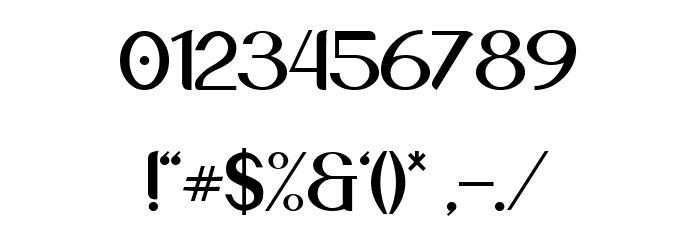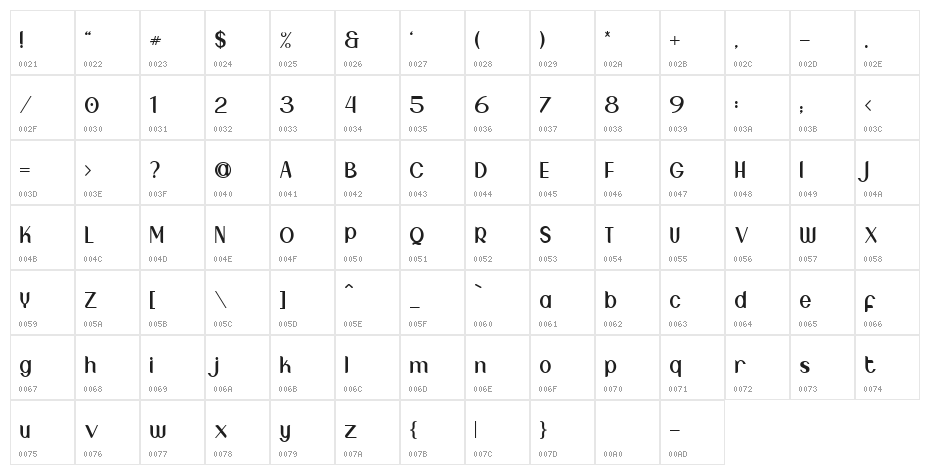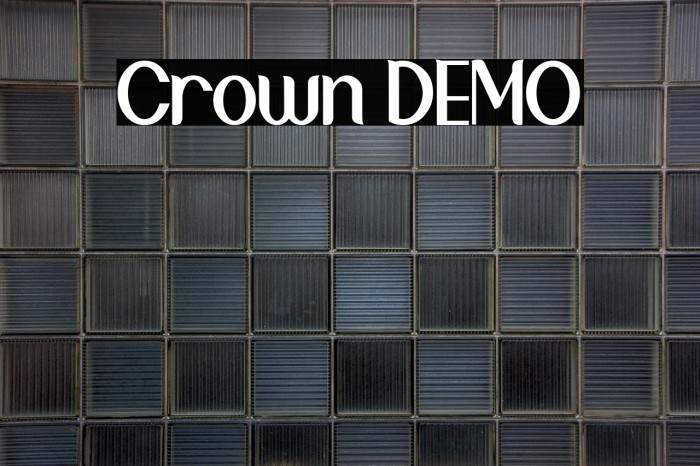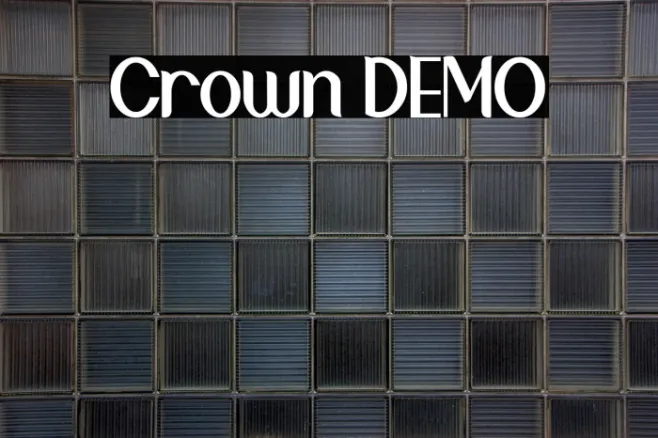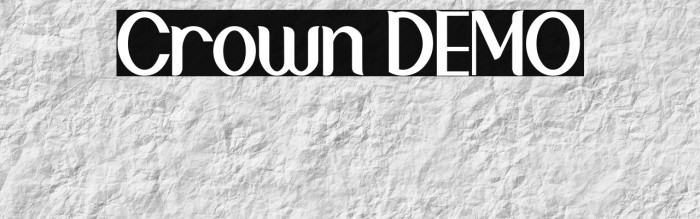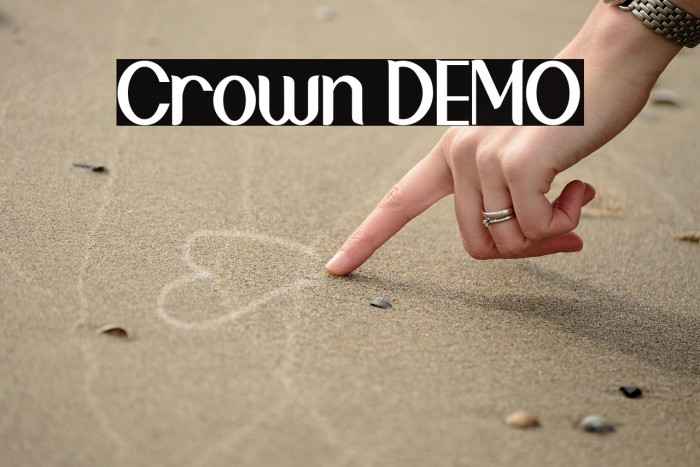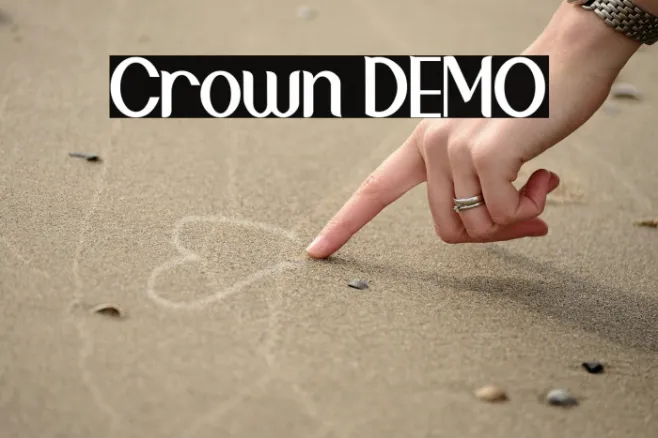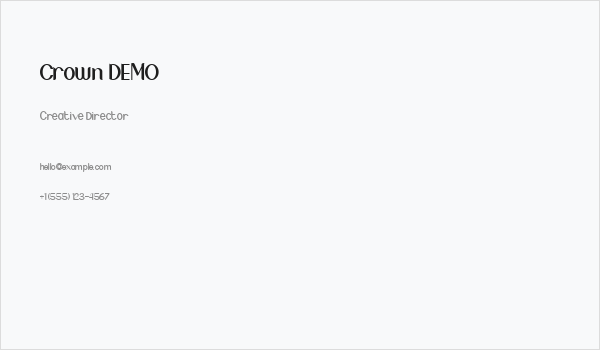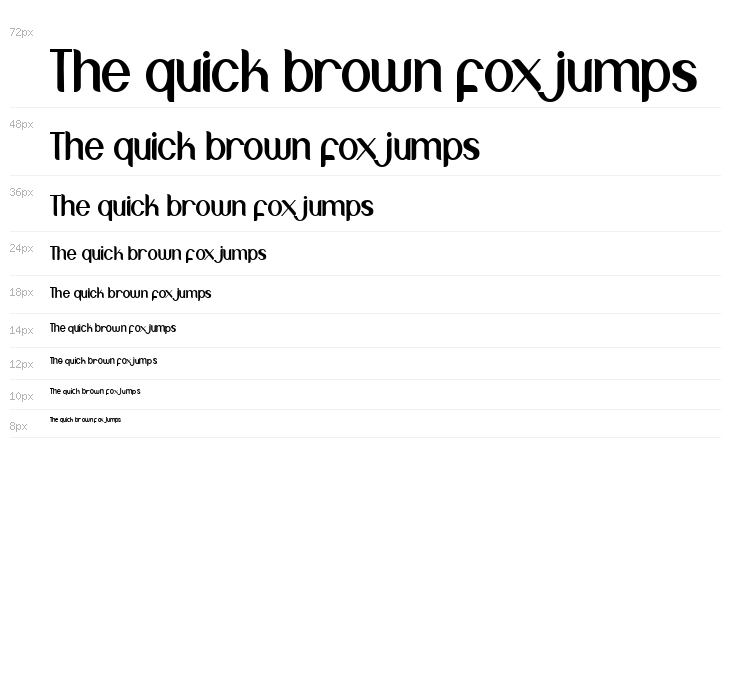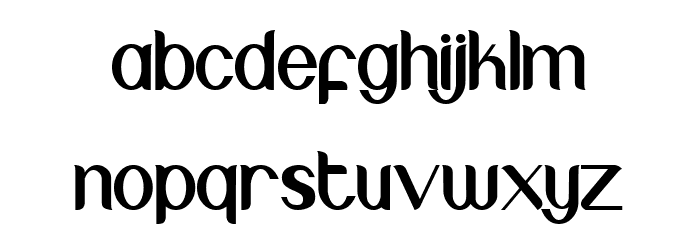
Crown DEMO Font
Crown DEMO Description
This font features a unique and modern design with a playful twist. The characters are bold and have a distinct curvature that adds a sense of movement and energy. The uppercase letters are particularly striking, with a combination of sharp angles and smooth curves that create a dynamic appearance. The lowercase letters maintain this style, offering a cohesive look across the typeface. The numbers and special characters are designed with the same attention to detail, ensuring consistency throughout. This font is ideal for projects that require a bold and contemporary aesthetic.